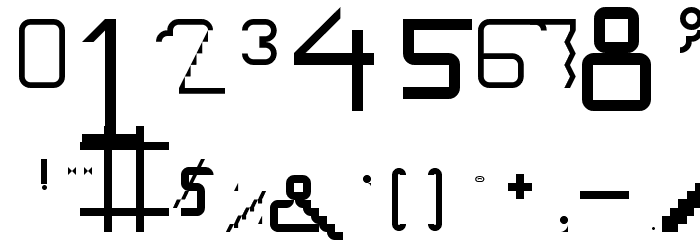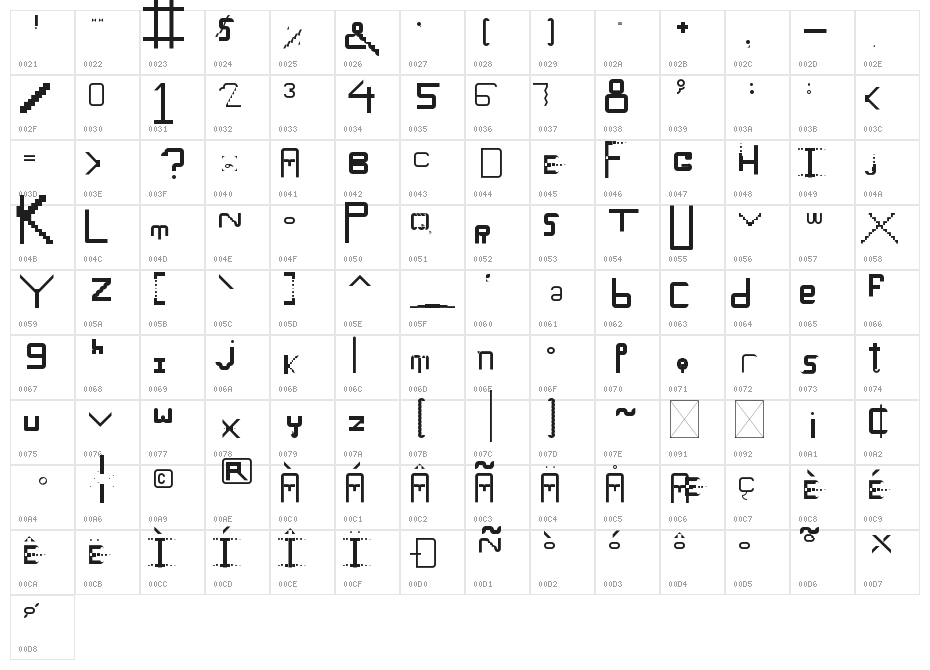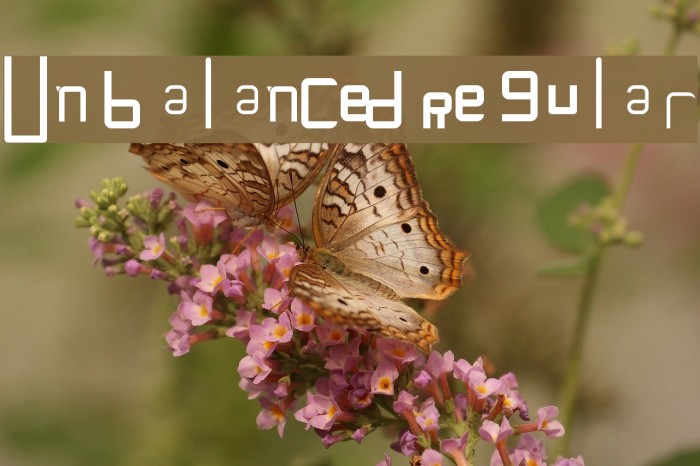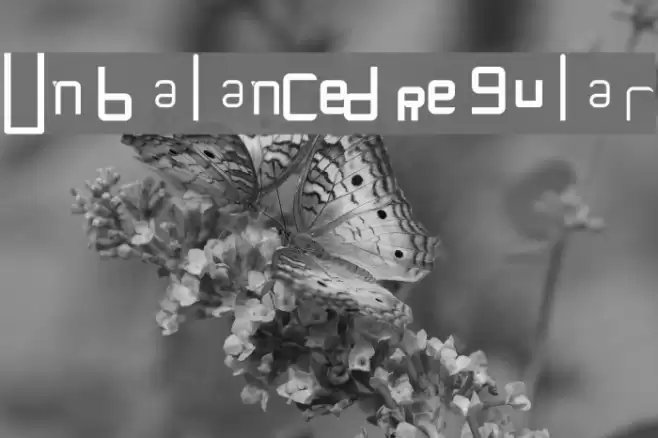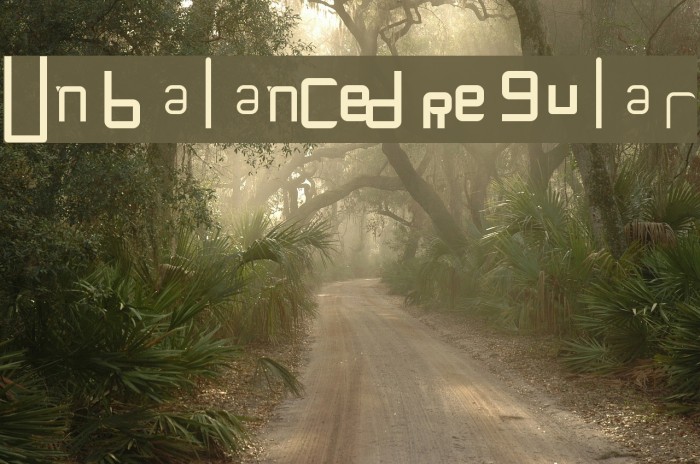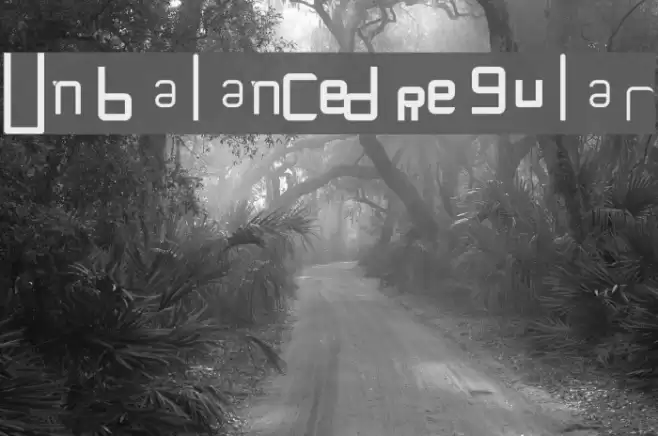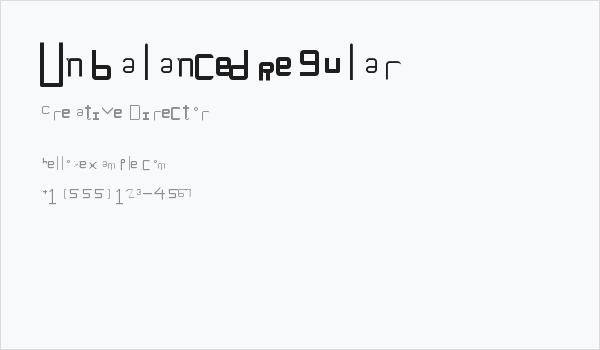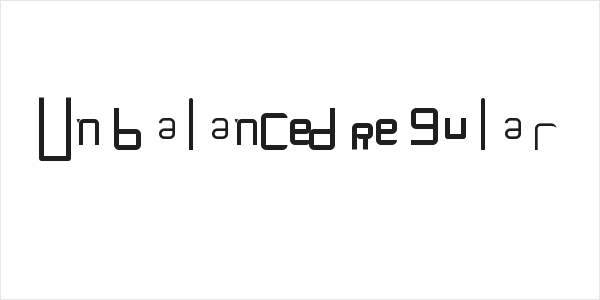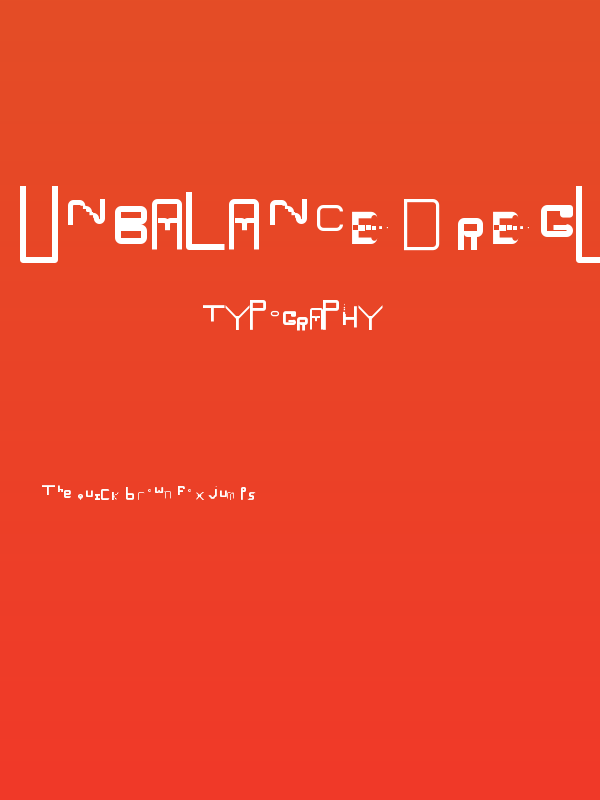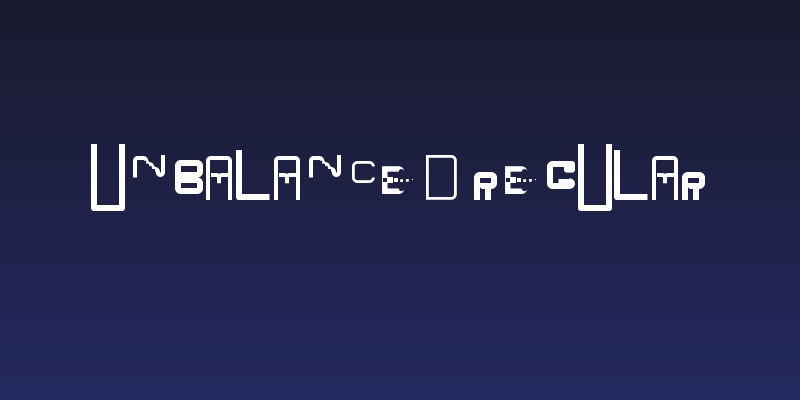
Unbalanced Regular Font
Unbalanced Regular Description
This font presents an eclectic and experimental style, characterized by its unbalanced and varied letterforms. Each character seems to have its own unique design, with some letters featuring pixelated or jagged edges, while others have smooth, rounded curves. This creates a dynamic and unpredictable visual rhythm. The font combines elements of both modern and retro aesthetics, with a playful and unconventional approach. The numerals and special characters follow the same eclectic style, adding to the overall quirky and artistic feel.
| Use Case | Logos, Posters, Artistic projects |
| Proposed Projects | Ideal for creative projects such as album covers, posters, or digital art where a unique and artistic touch is desired. |